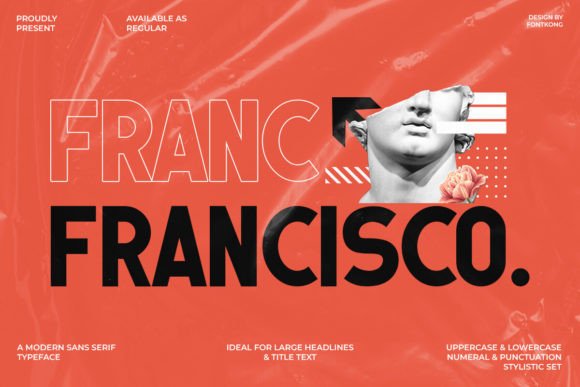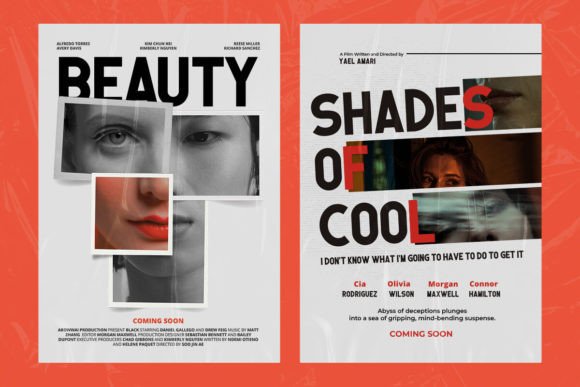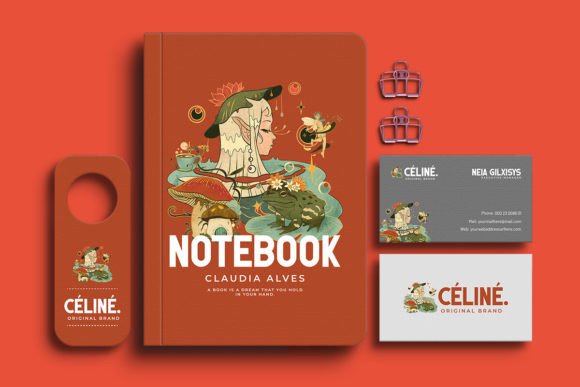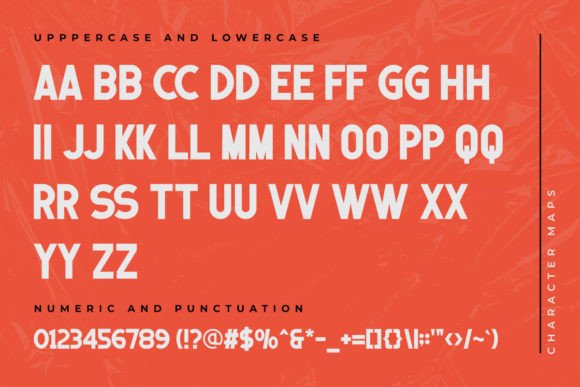
Francisco Font: Modern Sans Serif for Elegant Logo Design
About the Francisco Font
Explore the possibilities with Francisco Font, a font that offers both beauty and functionality. Introducing Francisco Sans Serif Font – a sleek and modern typeface that exudes simplicity and elegance. Perfect for a wide range of design projects, Francisco features clean lines, balanced proportions, and a contemporary aesthetic that enhances readability and visual appeal. Ideal for branding, logos, web design, and print materials, this versatile font brings a touch of sophistication to any project. Elevate your designs with the stylish and professional Francisco Sans Serif Font, and make a lasting impression.
Francisco Font Usage Examples
Francisco Font Example